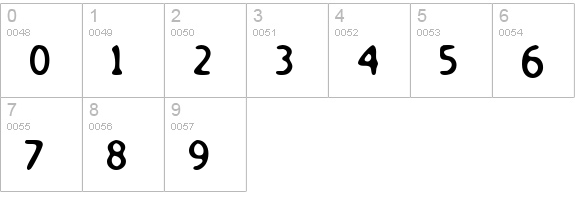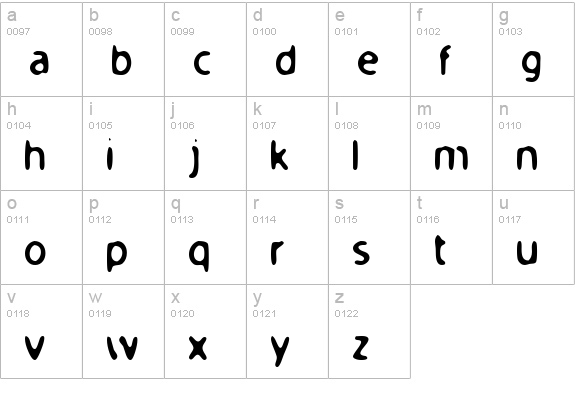
Introducing Sir Smoothy, an exquisite font that combines elegance and sophistication with a touch of playfulness. This font is designed to add a touch of charm to your projects, whether it be invitations, logos, branding, or any creative endeavor that requires a touch of finesse. Sir Smoothy is meticulously crafted with smooth curves and graceful letterforms, making it a truly versatile typeface that adapts seamlessly to any design concept. Its clean lines and balanced proportions give it a timeless appeal, while its unique character sets it apart from the crowd. But what sets Sir Smoothy apart even further is that it is available for free! Yes, you read that right. This extraordinary font can be freely downloaded at FontsMarket.com, ensuring that anyone can access this exceptional typeface without breaking the bank. With Sir Smoothy, you can effortlessly elevate your designs to new heights, adding a touch of sophistication and elegance that will captivate your audience. Its versatility allows it to be used in a wide range of design projects, from elegant wedding invitations to stylish brand identities. So why wait? Don't miss out on the opportunity to enhance your creative projects with Sir Smoothy. Head over to FontsMarket.com now and download this remarkable font for free. Embrace the beauty and elegance of Sir Smoothy and let your designs shine with its timeless charm.